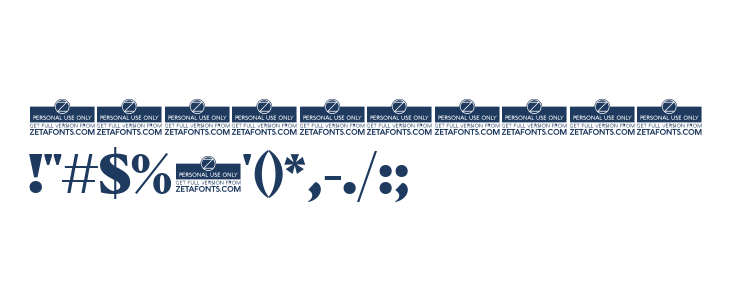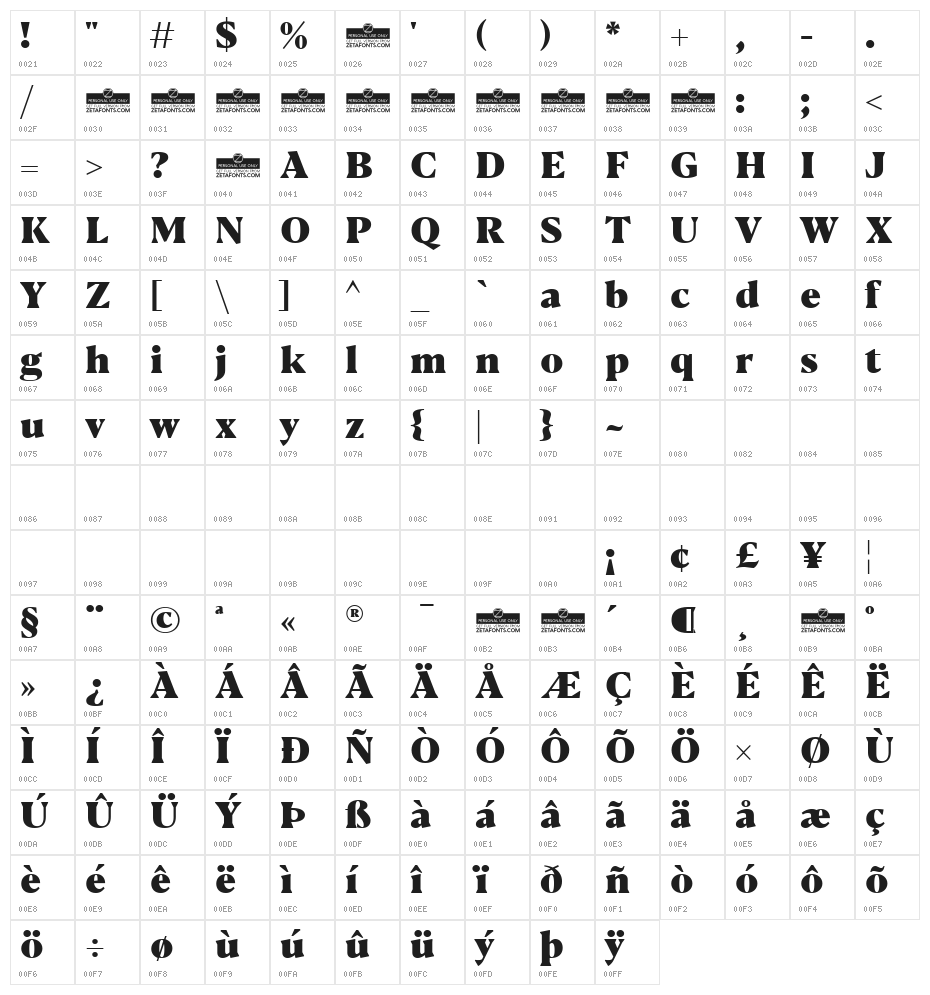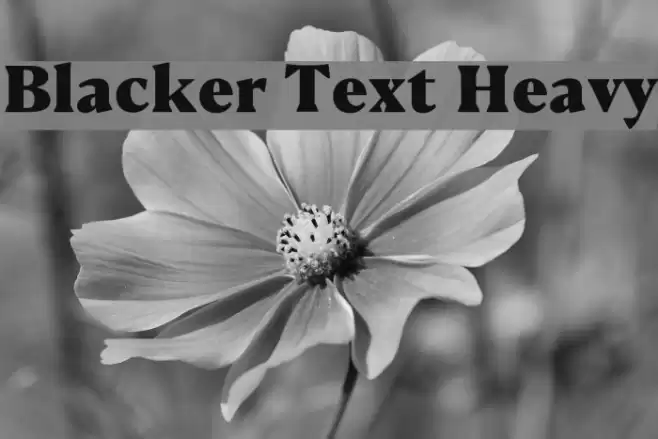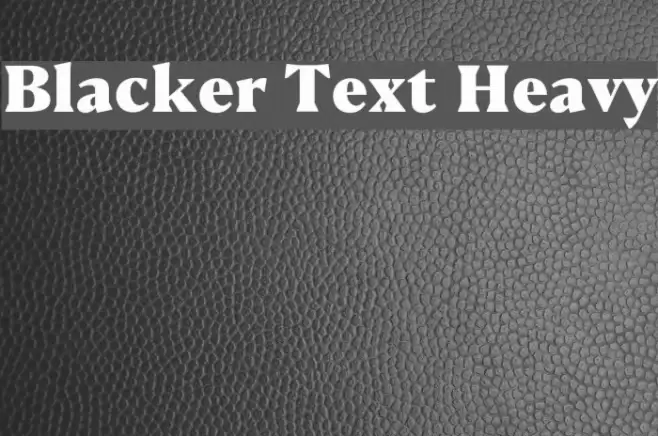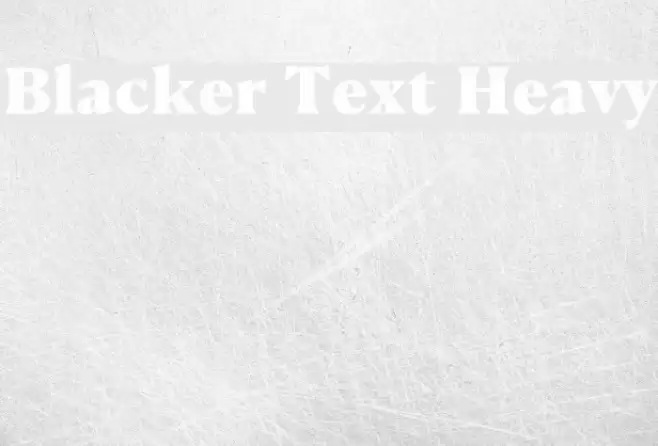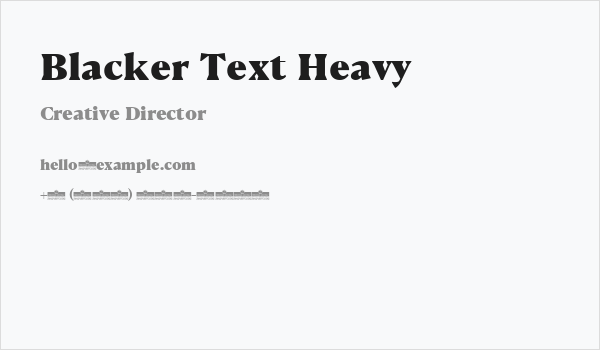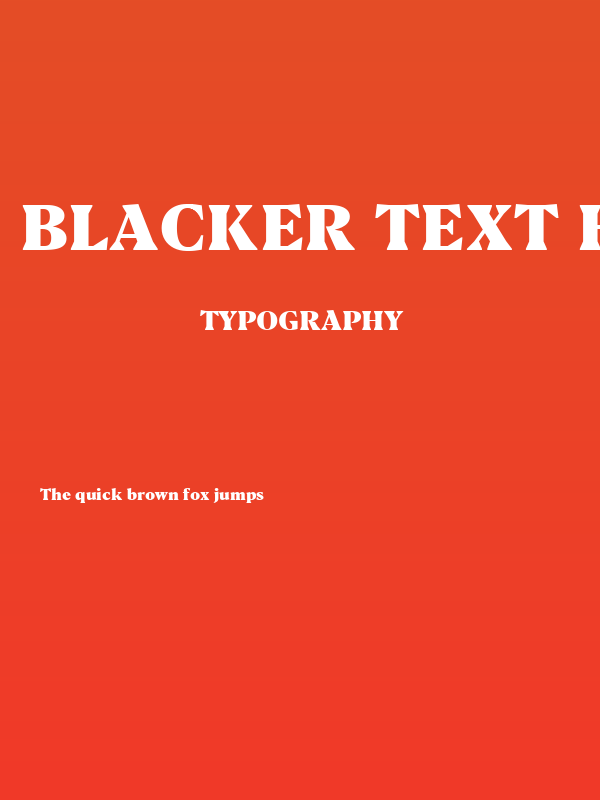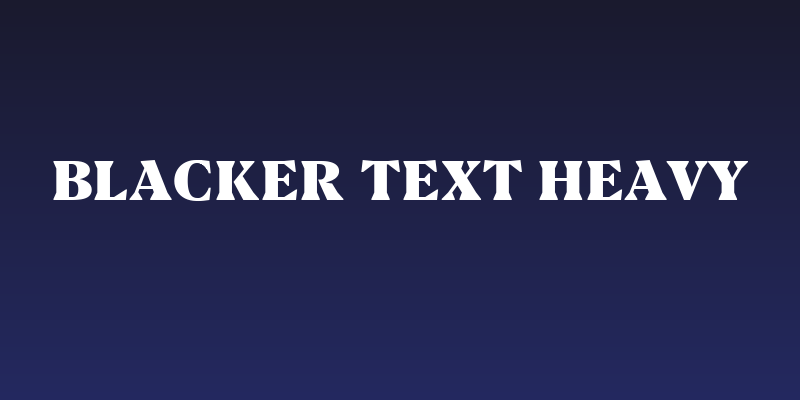
Blacker Text Heavy Font
Blacker Text Heavy Description
This font is characterized by its bold and heavy appearance, offering a strong and commanding presence. The uppercase letters are robust and impactful, while the lowercase letters maintain a consistent weight, ensuring readability and balance. The font features a high contrast between thick and thin strokes, adding to its dramatic and authoritative style. The serifs are pronounced, contributing to its classic and timeless feel. The overall design is well-suited for making a bold statement, with tight character spacing that enhances its compact and powerful look.
| Proposed Projects | Ideal for headlines, posters, branding, and any project requiring a bold and authoritative typeface. |